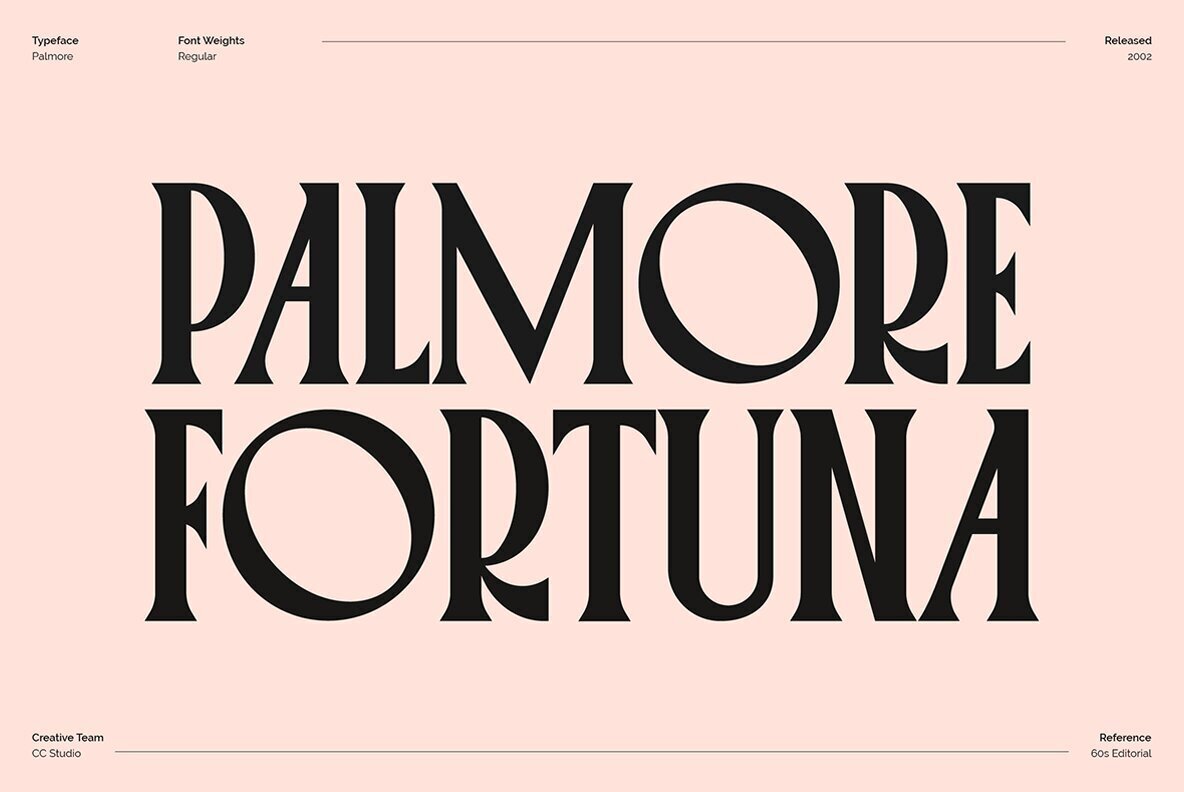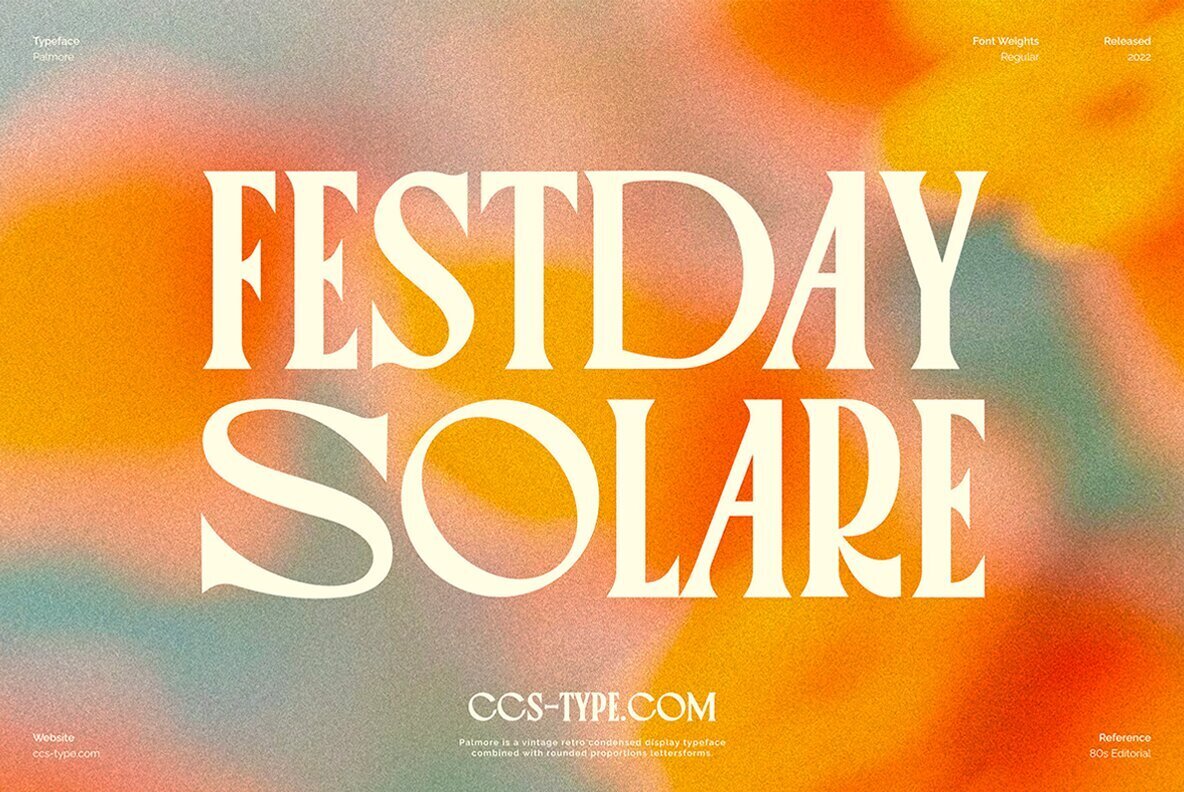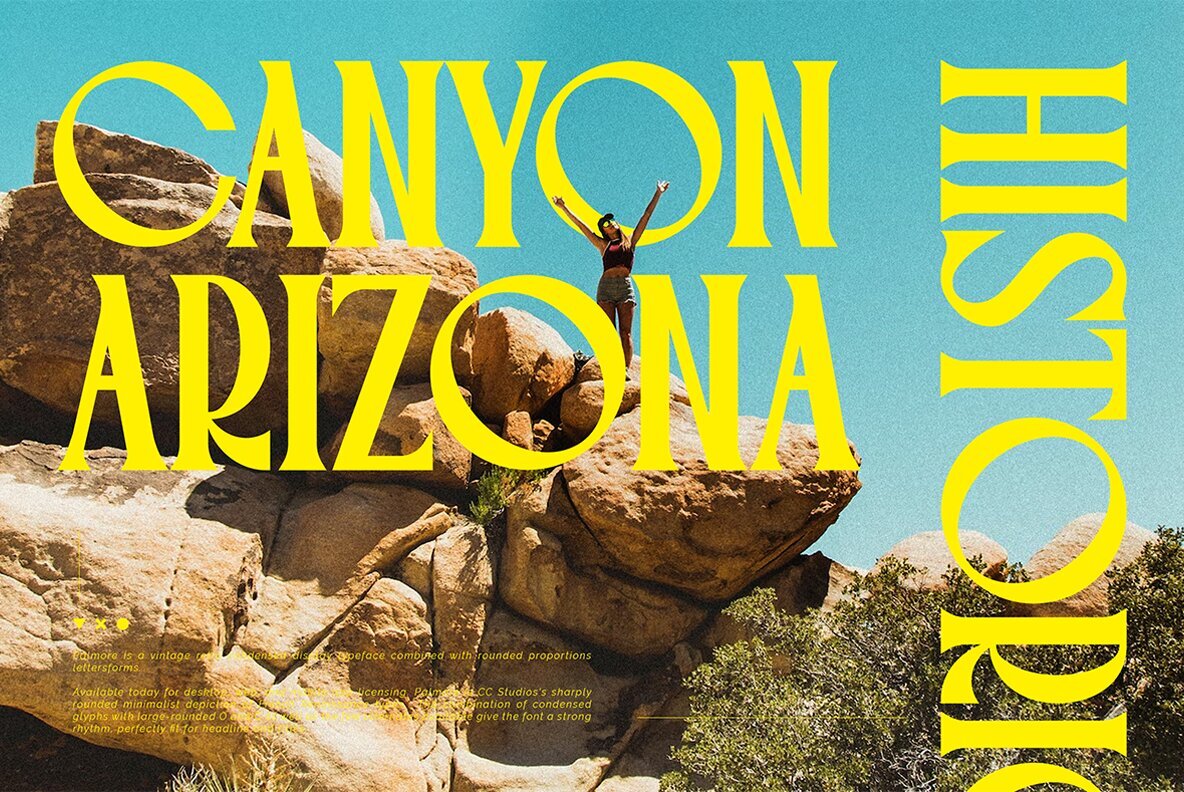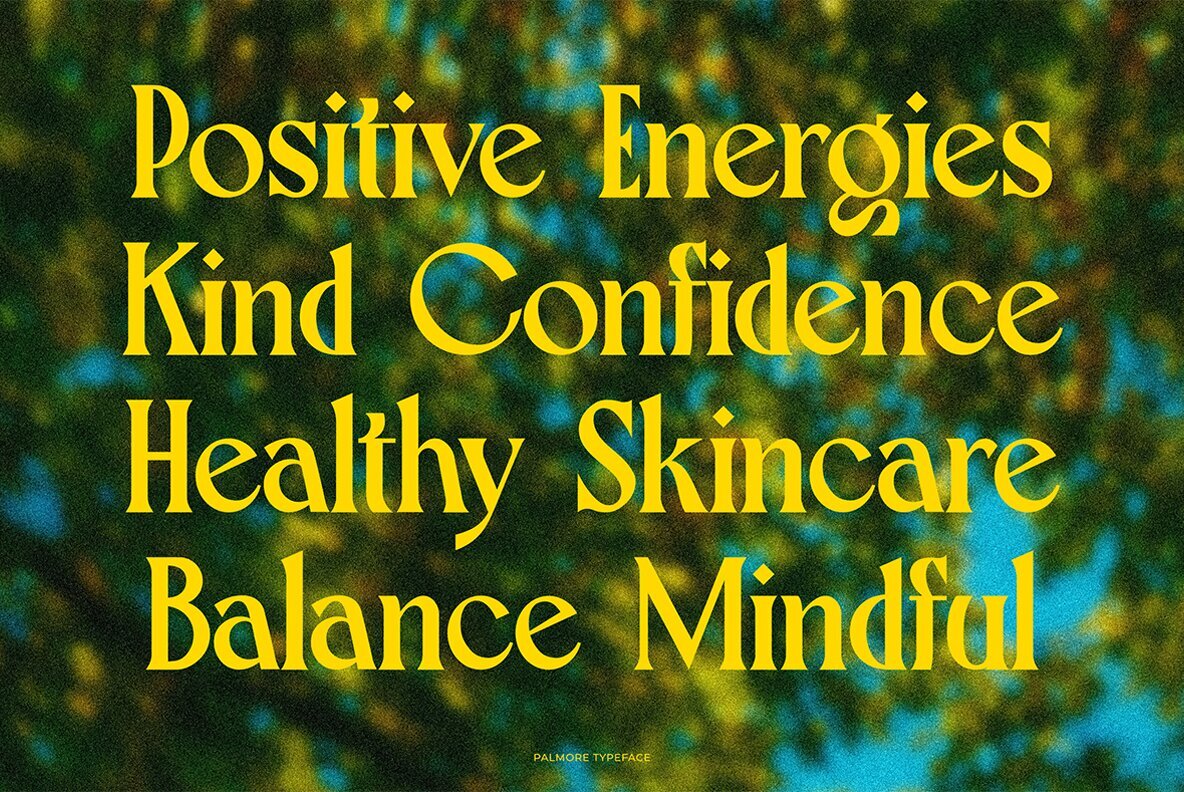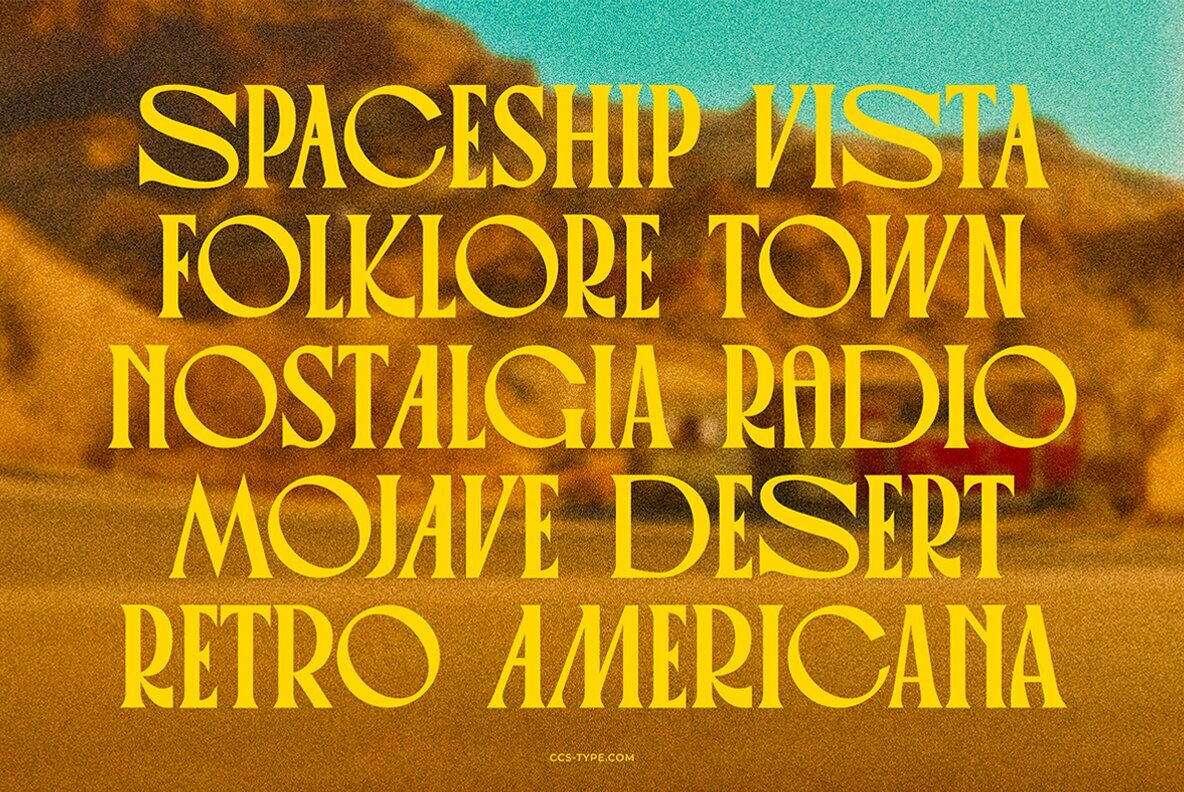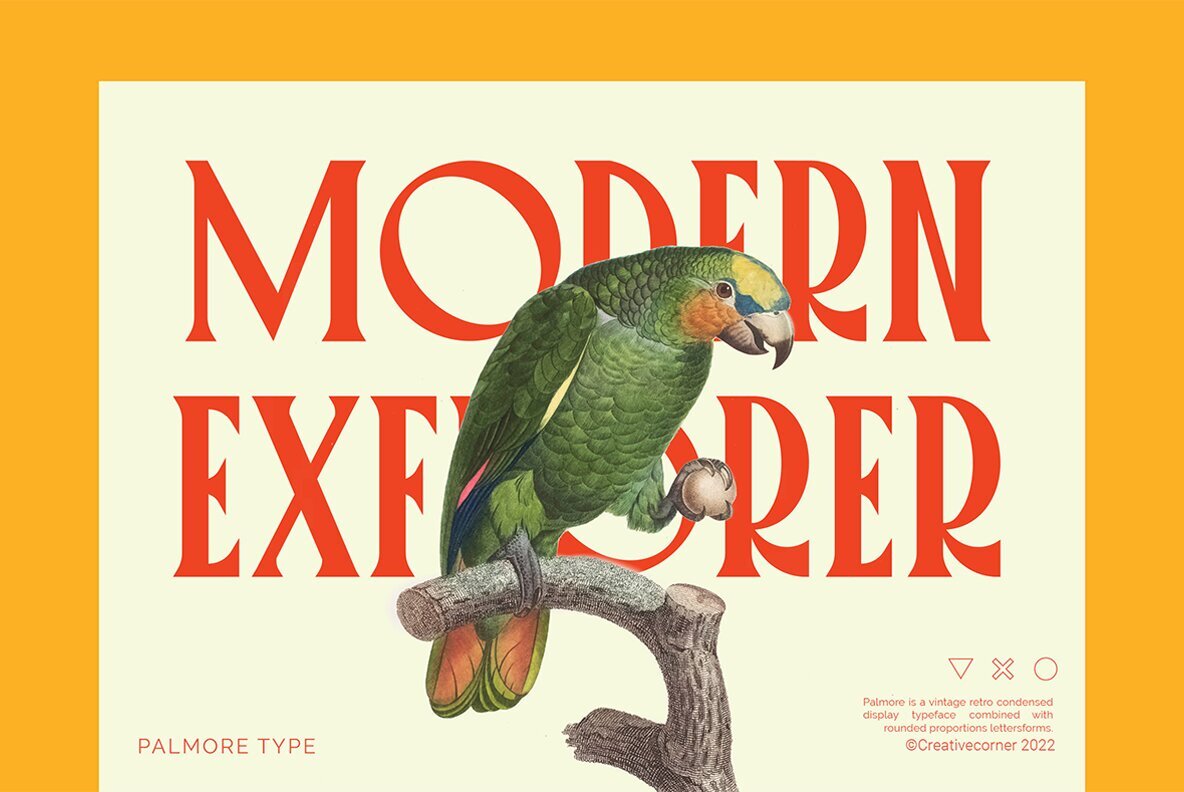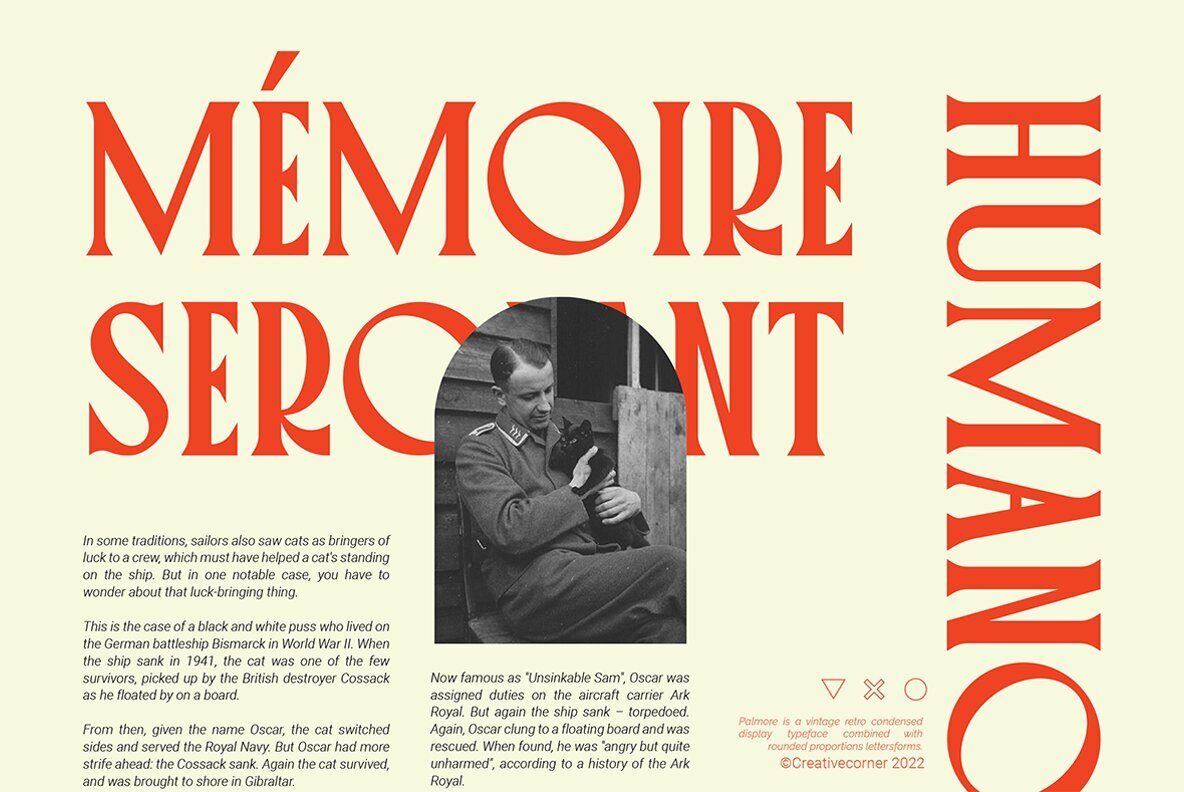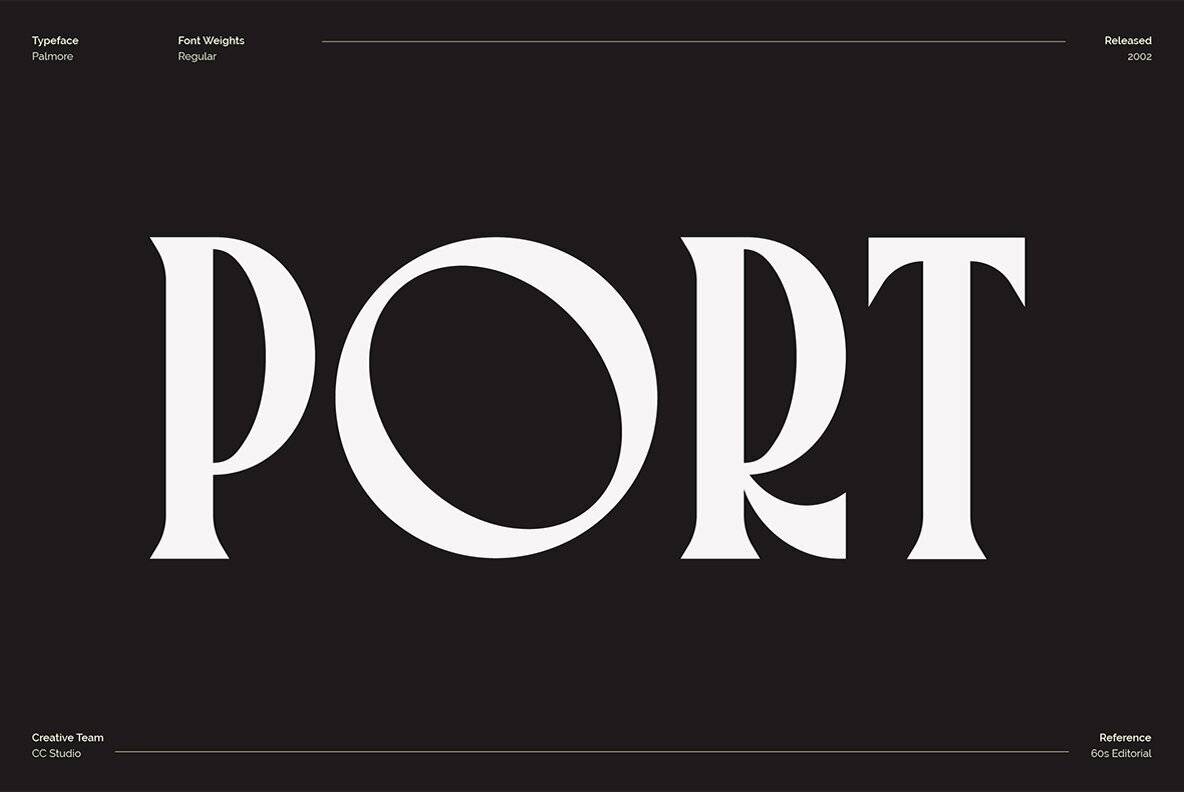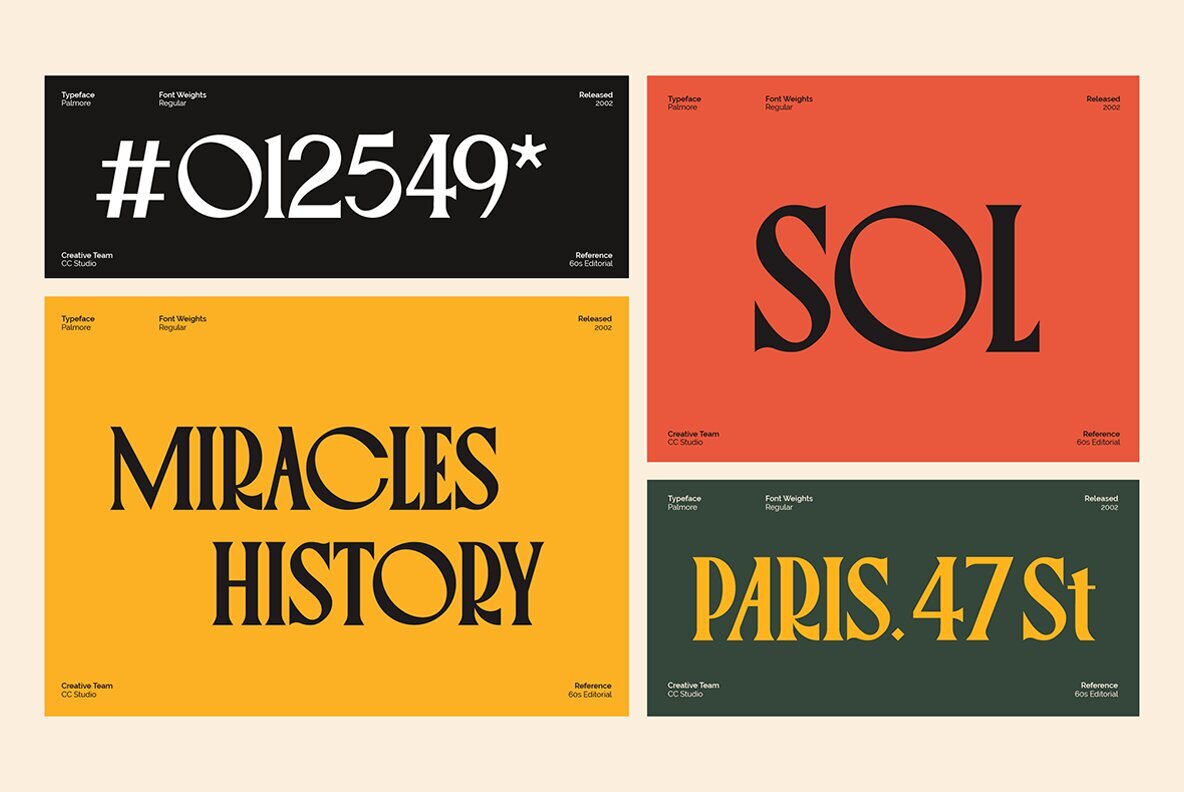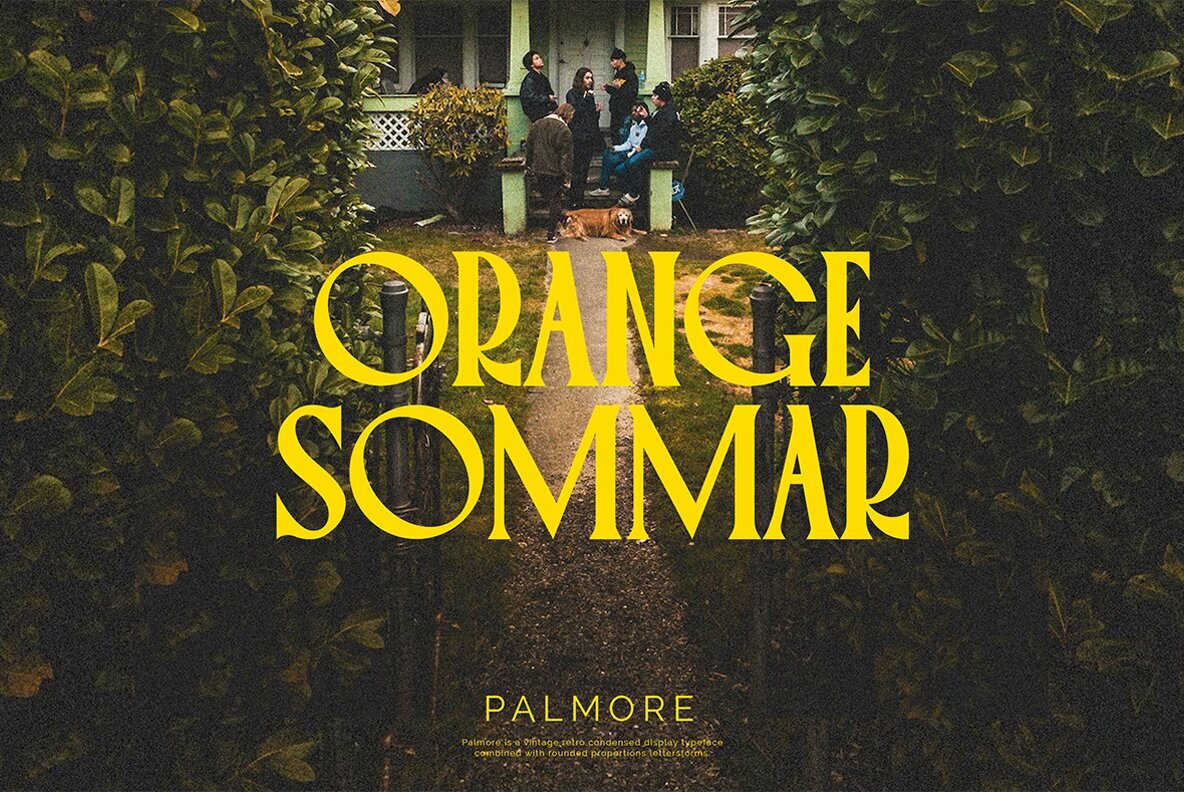
Palmore - Vintage Retro Typeface
Palmore offers an appealing blend of vintage flair and retro vibes, ideal for those looking to inject personality into their designs. This typeface perfectly balances condensed shapes for strong rhythm with elegantly rounded letters like 'O' and 'C'. It features large alternate glyphs, enriching its visual appeal and versatility.
• Four distinct weights
• Stylistic alternates and ligatures